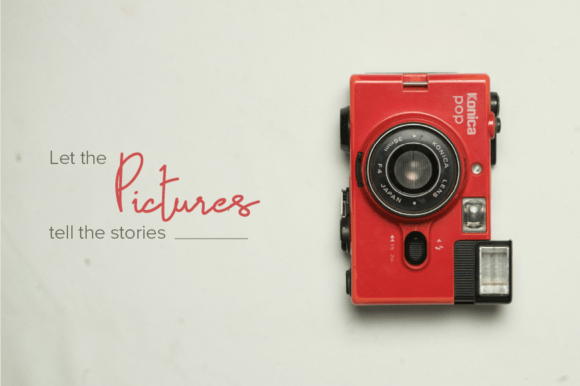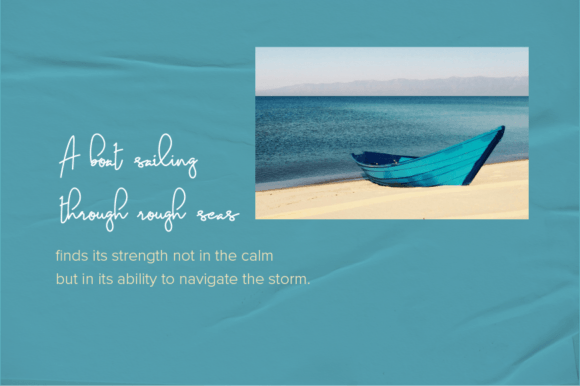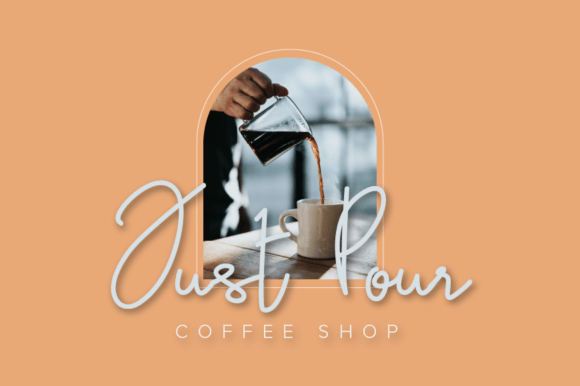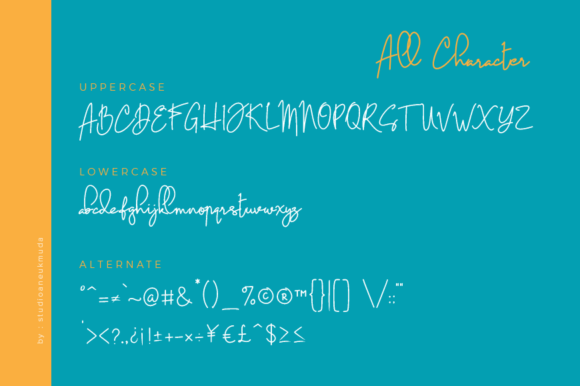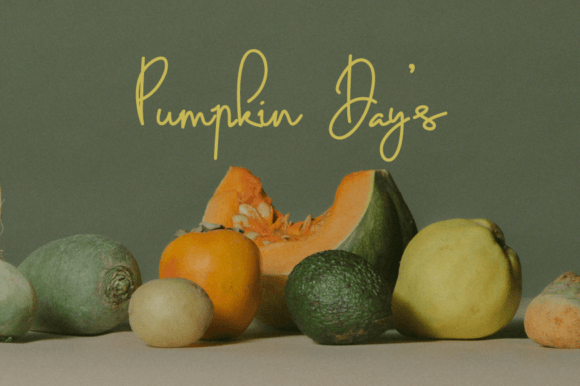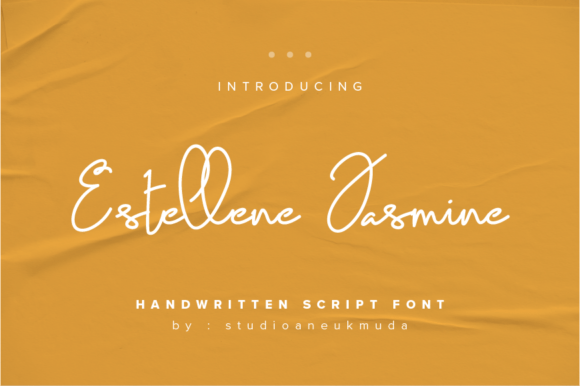
Elevate Your Designs with Estellene Jasmine Font: A Timeless Elegance
In the world of typography, few fonts manage to capture the essence of elegance and sophistication as effectively as the Estellene Jasmine Handwritten Font. This exquisite font is meticulously crafted to bring a touch of luxury to any design project, making it an ideal choice for designers and crafters looking to create stunning visuals. With its delicate strokes and graceful flow, Estellene Jasmine is poised to captivate your audience and elevate your designs to new heights.
The Perfect Blend of Classic Beauty and Modern Versatility
Estellene Jasmine strikes the perfect balance between classic beauty and modern versatility. Its timeless design ensures that it remains relevant across various design projects, from traditional print formats to digital media. This font is not just a typeface; it’s an experience. It evokes emotions and adds a personalized touch to your creations, making them stand out in a crowded digital landscape.
Endless Design Possibilities with Estellene Jasmine
Whether you’re working on:
- Invitations: Add a touch of sophistication to your wedding invitations, event invites, or any special occasion with Estellene Jasmine’s elegant strokes.
- Logos and Branding: Create a lasting impression with a logo that exudes luxury and refinement. Estellene Jasmine is perfect for brands looking to establish a high-end identity.
- Social Media Graphics: Elevate your social media presence with eye-catching graphics that showcase your brand’s personality. Estellene Jasmine’s legibility and charm make it perfect for digital formats.
What Makes Estellene Jasmine Stand Out?
Several key features make Estellene Jasmine an exceptional choice for designers:
- Delicate Strokes: The font’s delicate strokes add a touch of refinement to any design, making it perfect for projects that require a level of sophistication.
- Graceful Flow: Estellene Jasmine’s letters flow seamlessly into one another, creating a beautiful and harmonious visual experience.
- High Legibility: Despite its elegant design, Estellene Jasmine remains highly legible, making it suitable for both print and digital formats.
- Versatility: This font can be used across various design projects, from elegant stationery to digital media.
Why Choose Estellene Jasmine for Your Design Projects?
For designers and crafters looking to create stunning visuals, Estellene Jasmine offers:
- Unique and Personalized Touch: Stand out from the crowd with a font that adds a unique and personalized touch to your designs.
- Time-Saving: With Estellene Jasmine, you can create professional-looking designs in no time. Its elegant design and high legibility save you time and effort.
In conclusion, Estellene Jasmine Handwritten Font is a timeless and elegant typeface that can elevate your designs to new heights. With its delicate strokes, graceful flow, and high legibility, it’s perfect for designers and crafters looking to add a touch of sophistication to their projects. Whether you’re working on invitations, logos, branding, or social media graphics, Estellene Jasmine is an ideal choice. Experience the luxury and refinement it brings to your designs and take your visual creations to the next level.